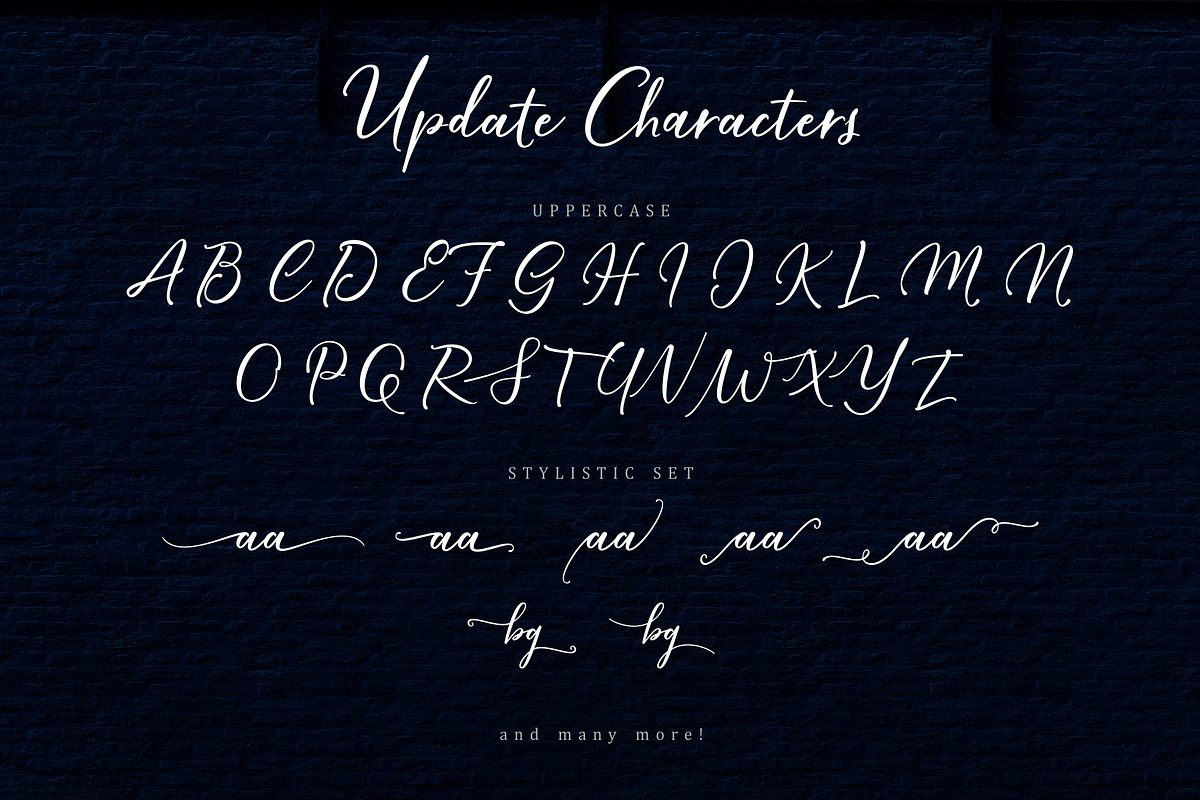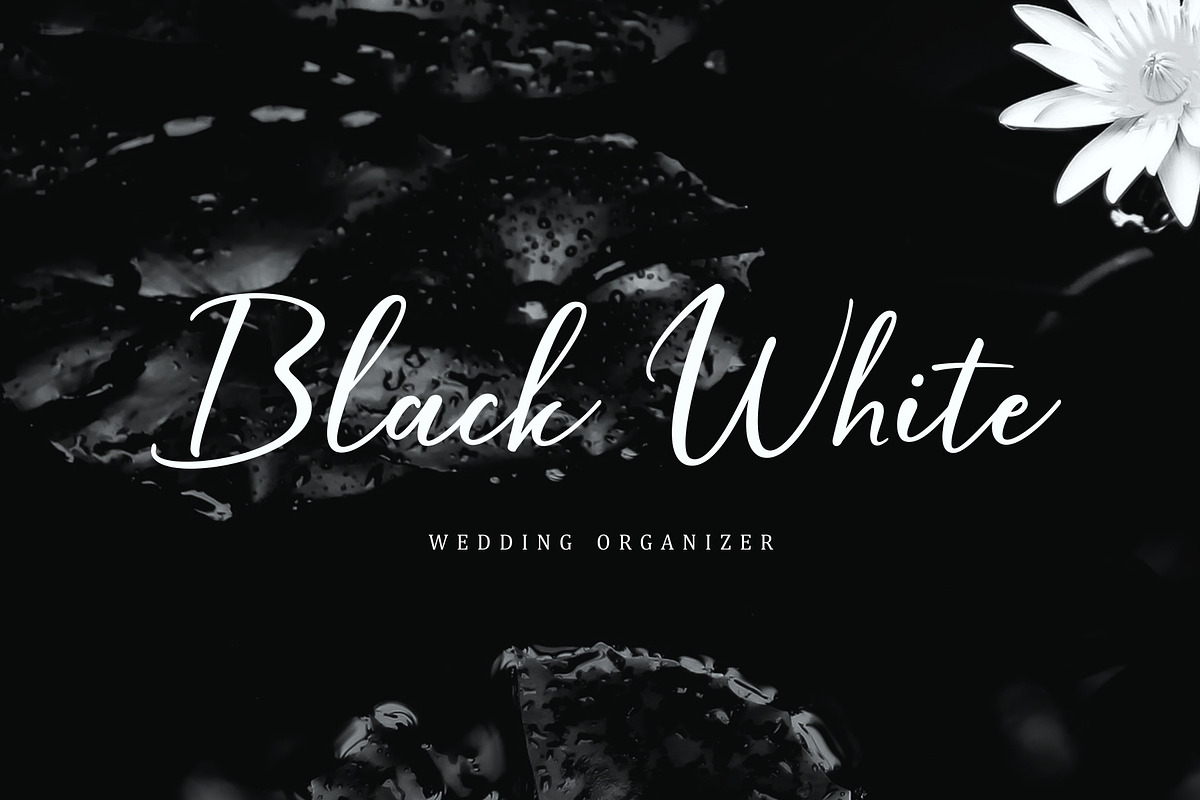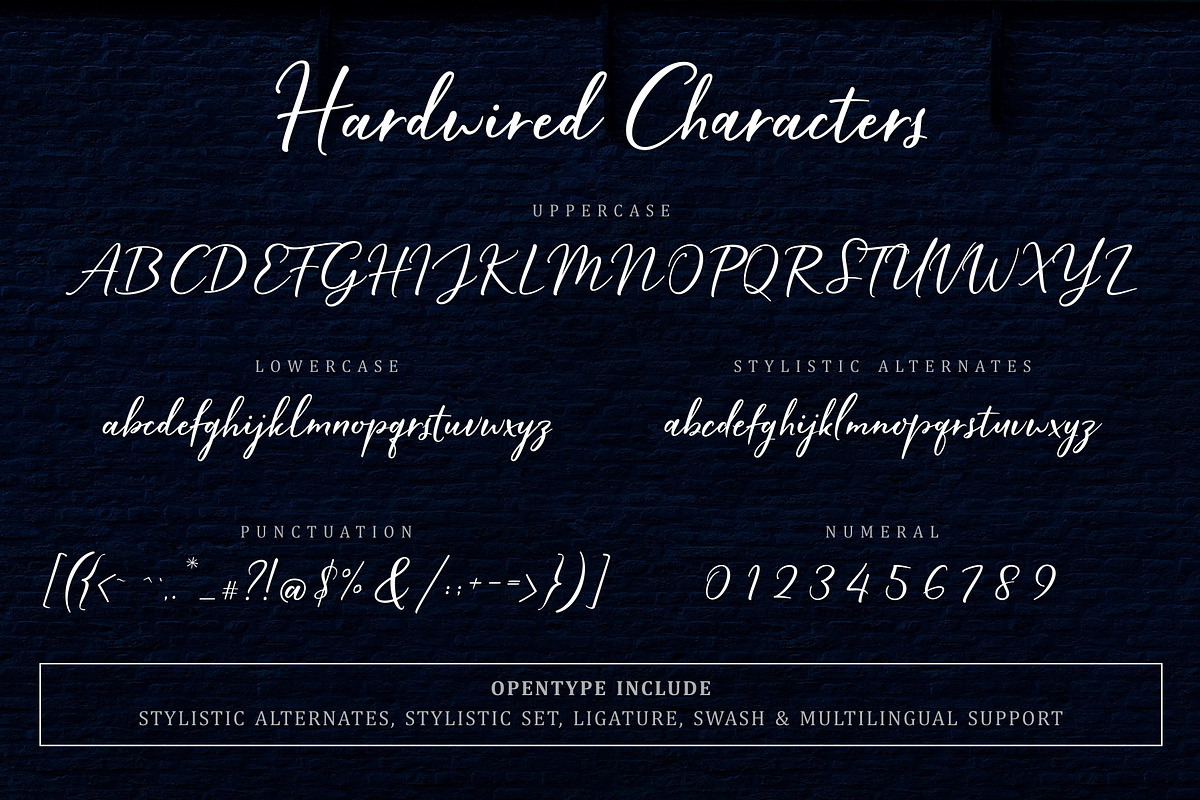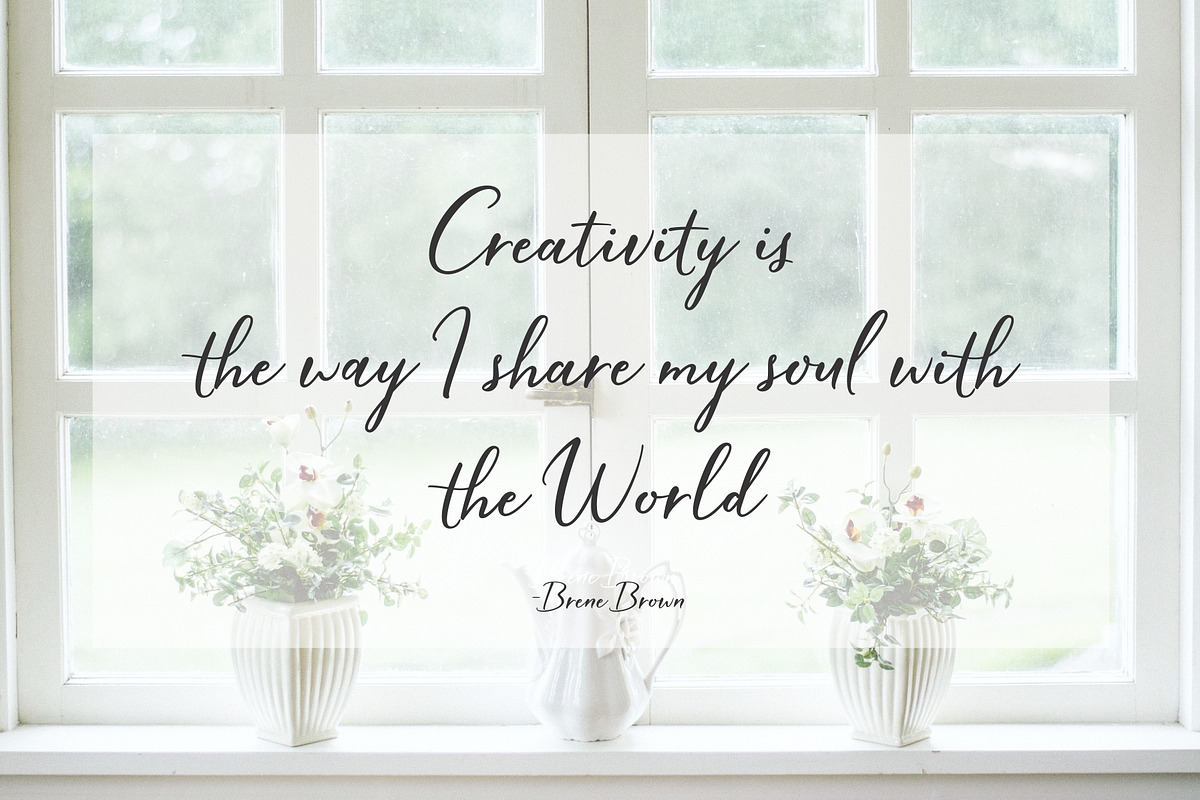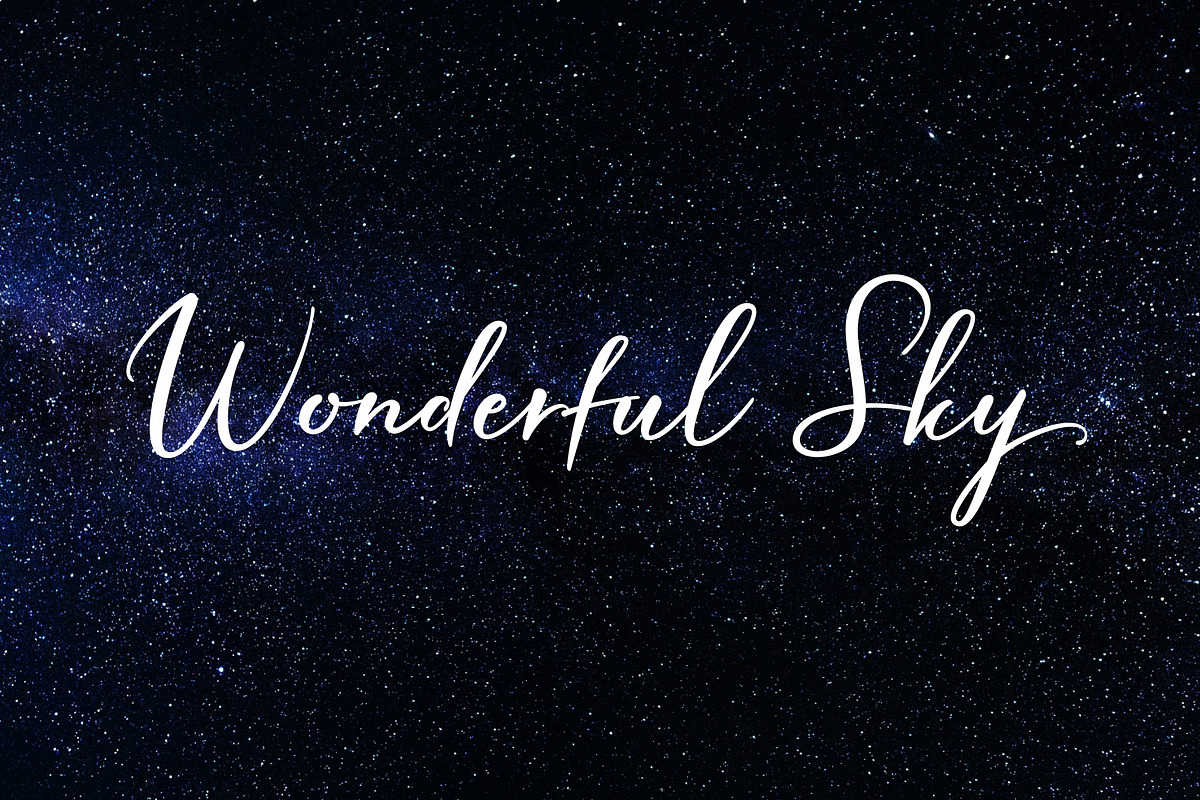
Hardwired Script - UPDATE
Introducing Hardwired Script
Hardwired a new handmade script with a style elegant, sweet and simple. Made with great care to provide the natural and modern elements. This font has many advantages although it looks ordinary. The great thing about this font is you can find some style when you use it, examples such as natural handwriting style, unique, simple, elegant, and bold. and of course it's just one font..! Interesting right? Please try it!
With a style like this, this font will be suitable in use for logo's, branding projects, homeware designs, product packaging, mugs, quotes, posters, shopping bags, logo's, t-shirts, book covers, name card, invitation cards, greeting cards, and all your other lovely projects.
You can use this font for your job very easily. Because there are many features in it. Contains the complete set of lower and uppercase letters, punctuation, numbers, web fonts, and multilingual support. This font also includes several ligatures and alternative style Stylistic Set For those of you who have software that is capable of working OpenType (Corel Draw / Photoshop / Illustrator / InDesign).